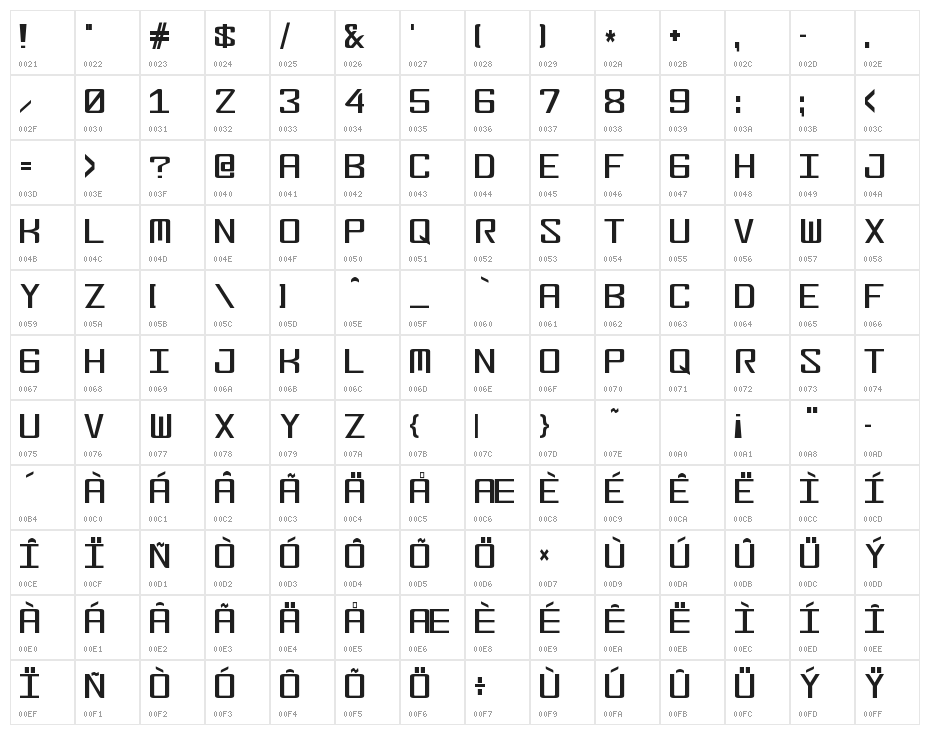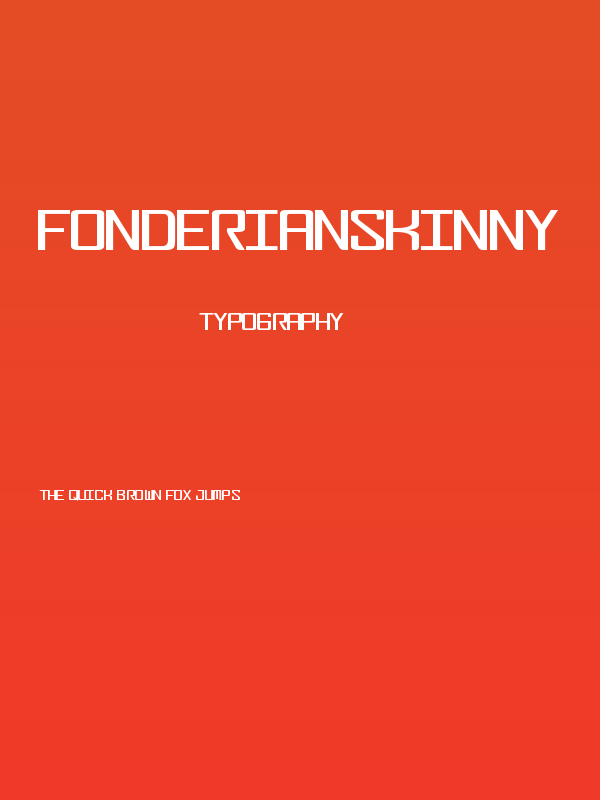
FonderianSkinny Font
FonderianSkinny Description
This font features a modern, geometric design with a distinctively angular and structured appearance. The characters are crafted with a consistent stroke width, giving them a uniform and cohesive look. The uppercase letters are bold and impactful, while the lowercase letters maintain the same geometric style, ensuring readability and visual harmony. The numerals are designed to match the overall aesthetic, with a clear and precise form. Special characters are included, maintaining the same angular and modern style, making this font versatile for various design needs.
| Use Case | Headlines, Logos, Digital interfaces |
| Proposed Projects | Ideal for futuristic branding, tech-related projects, digital interfaces, and modern advertising campaigns. |